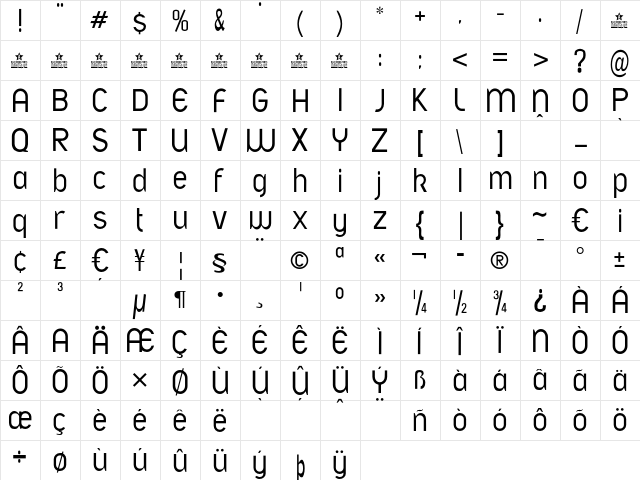
A font LIGHT PERSONAL USE Regular
| Foundry | billy argel |
| Designer | billy argel |
Design Context for A font LIGHT PERSONAL USE Typeface
A font LIGHT PERSONAL USE is a composed and adaptable typeface that performs quietly and consistently across a wide range of design contexts. The delicate stroke weight brings airiness and refinement to layouts.